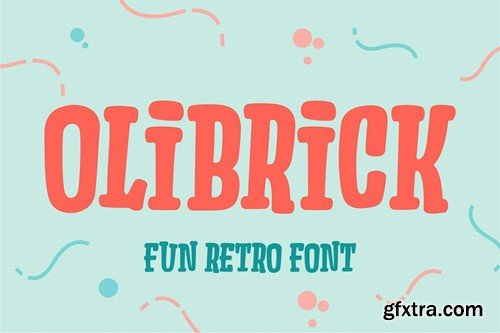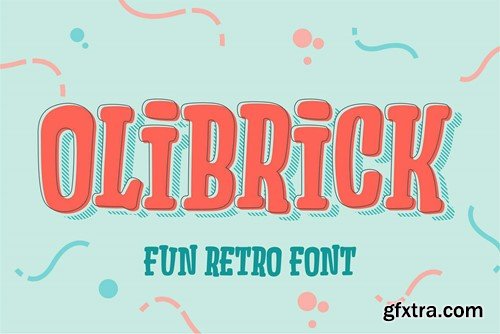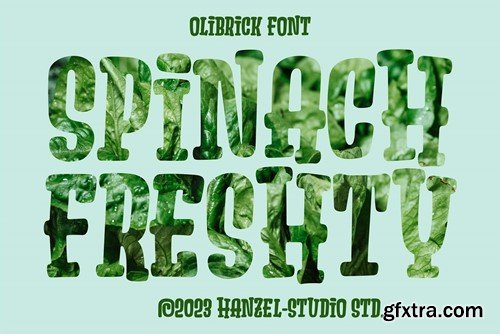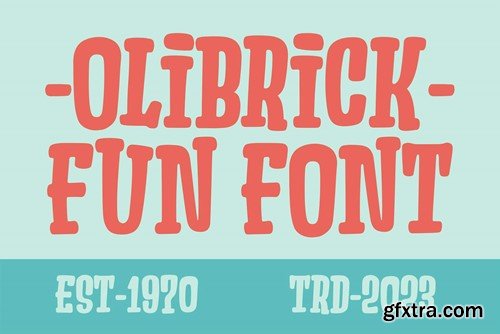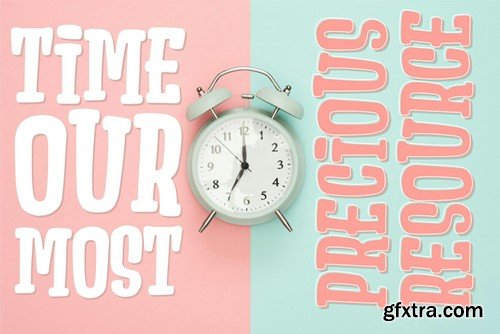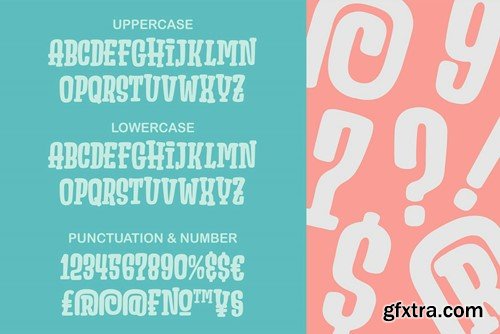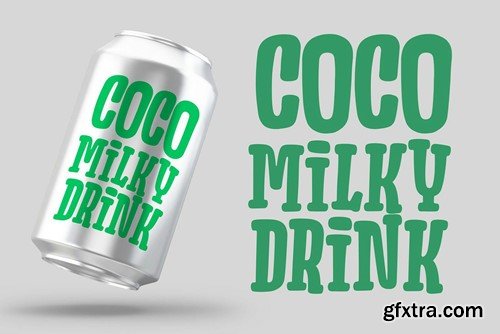
Olibrick - Fun Retro Font
Olibrick - Fun Retro Font Introducing Olibrick Font, I deliberately made this font with a fun and slightly flexible character, because from the shape of the character this font is very suitable for product branding. It has a font shape that has its own uniqueness, which can be applied to branding or packaging projects Features: What is inside the download files: Olibrick (OTF, TTF, WOFF)